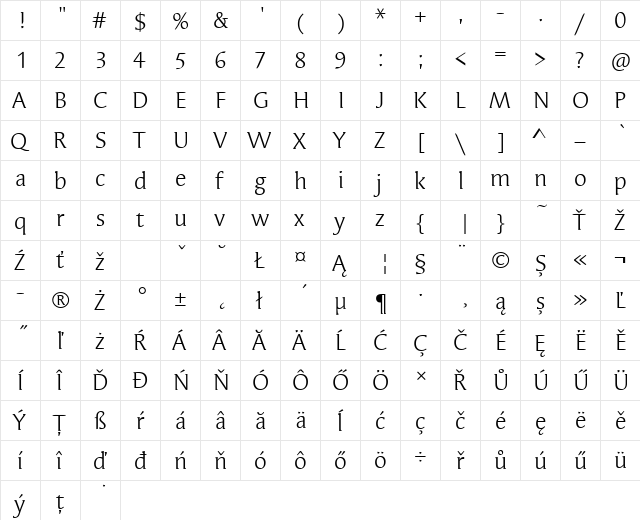
SyndorItcTEE Regular
Design Context for SyndorItcTEE Typeface
SyndorItcTEE offers clean, dependable letterforms without strong stylistic allegiance, making it a practical choice for designers who need flexibility.